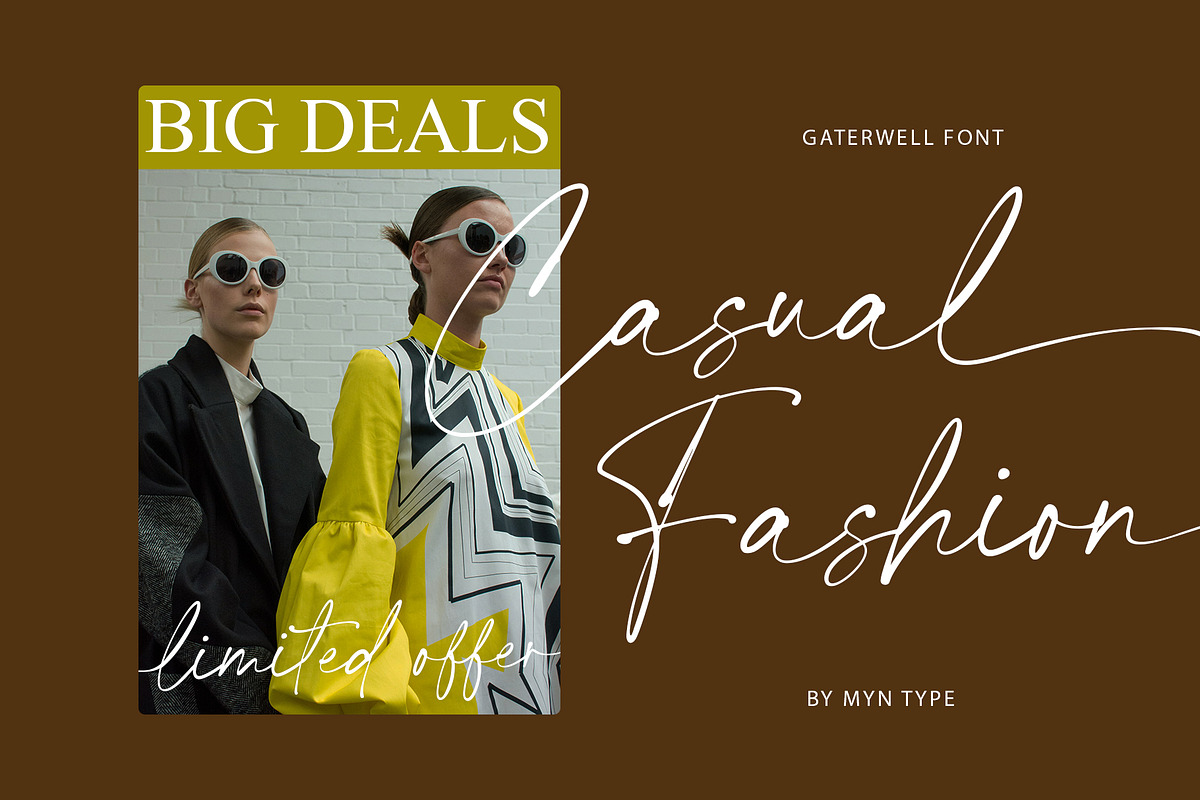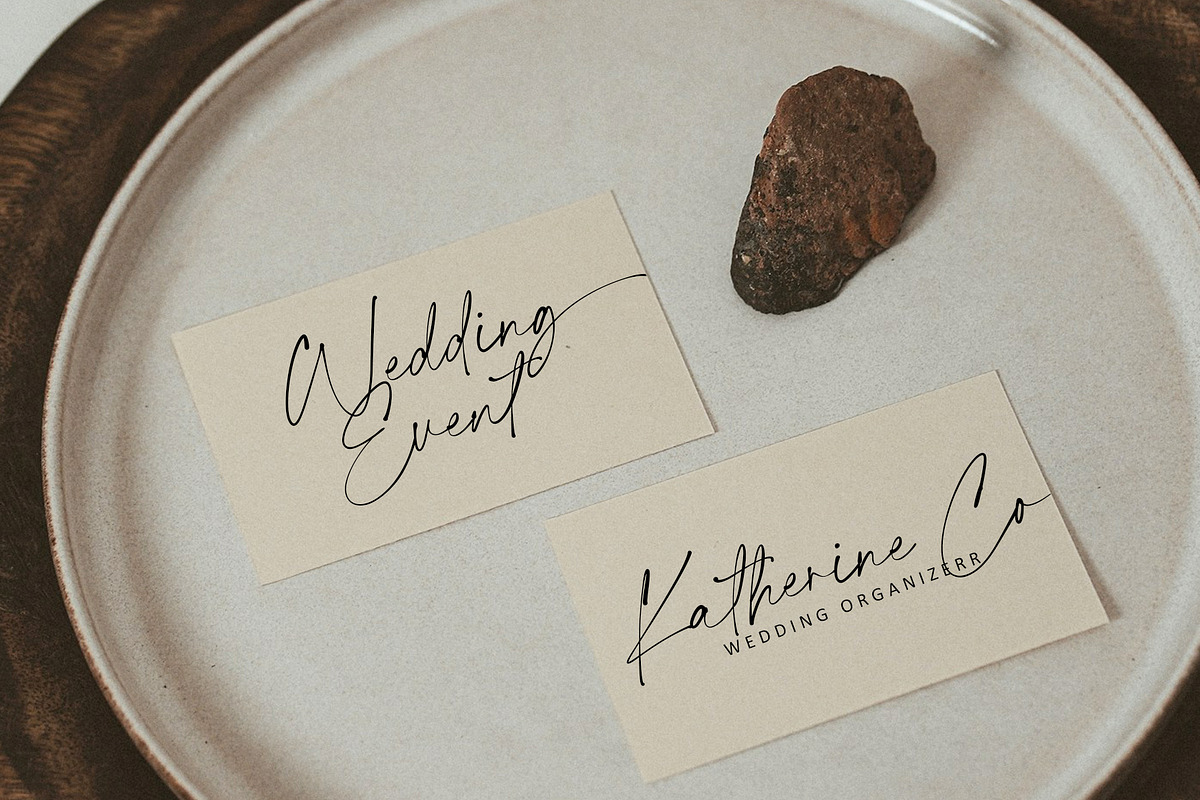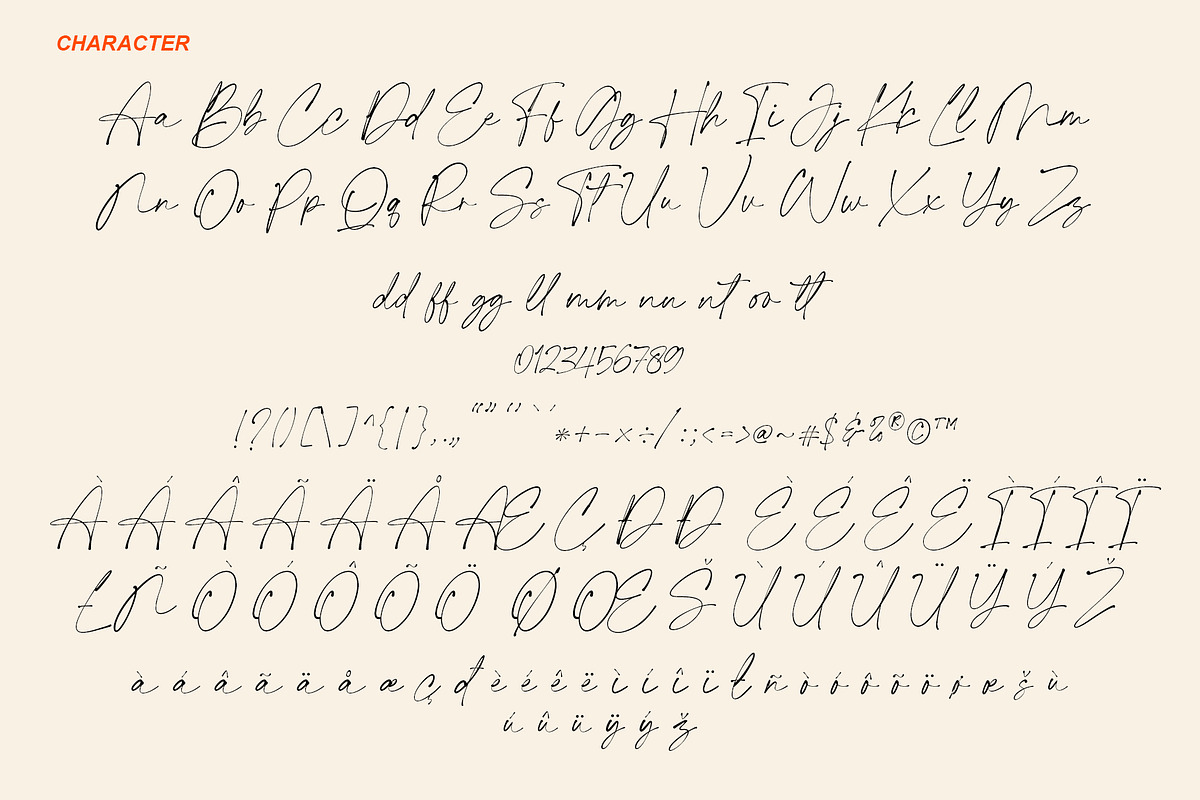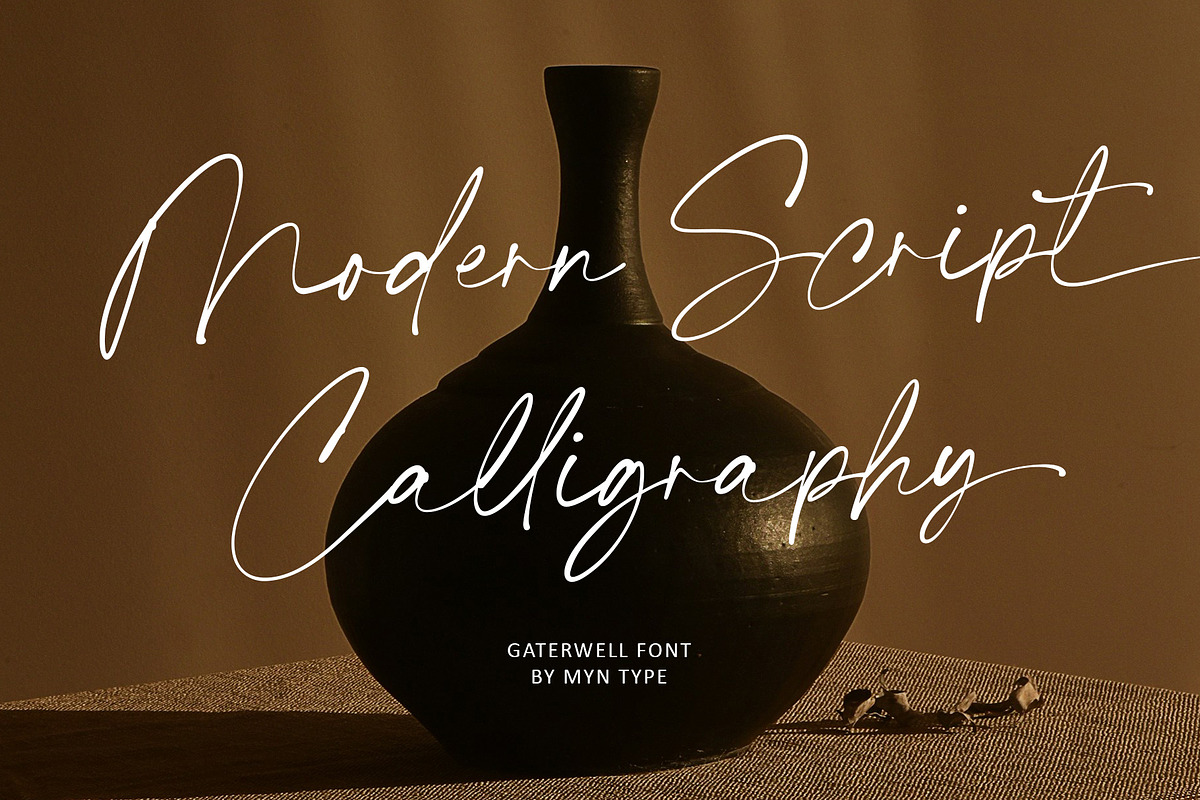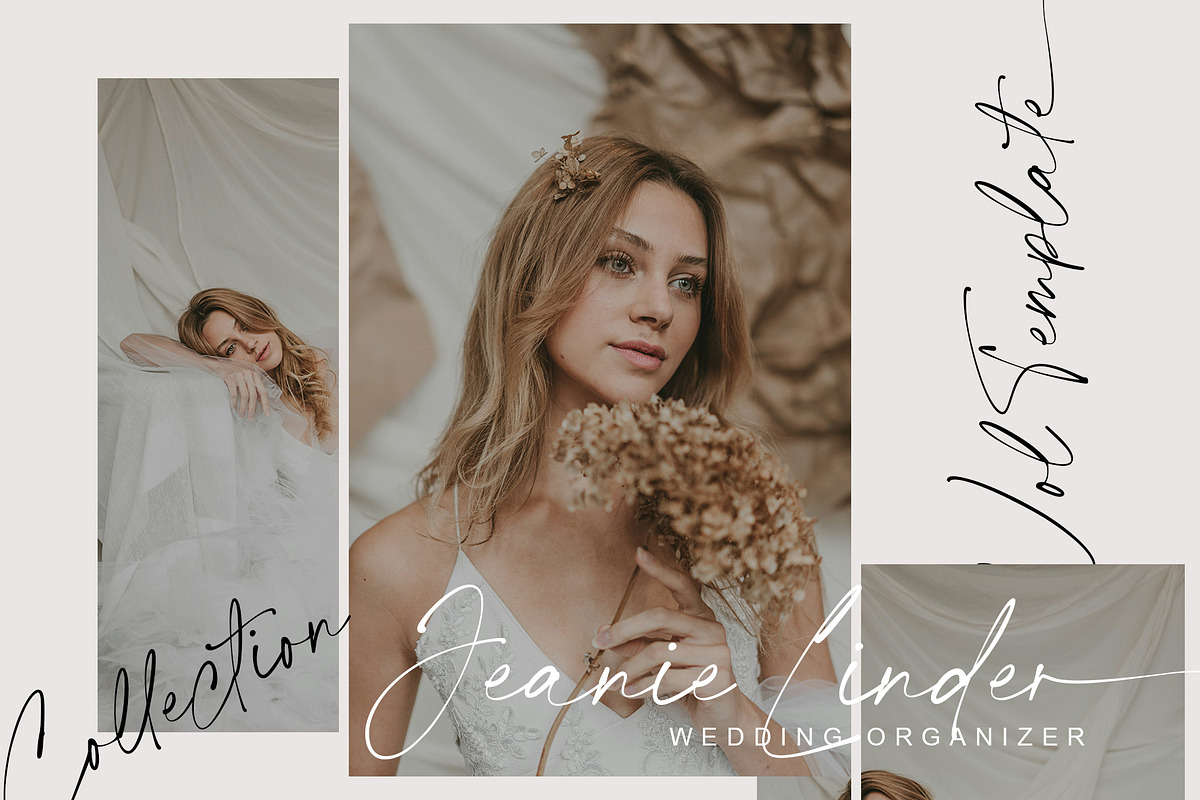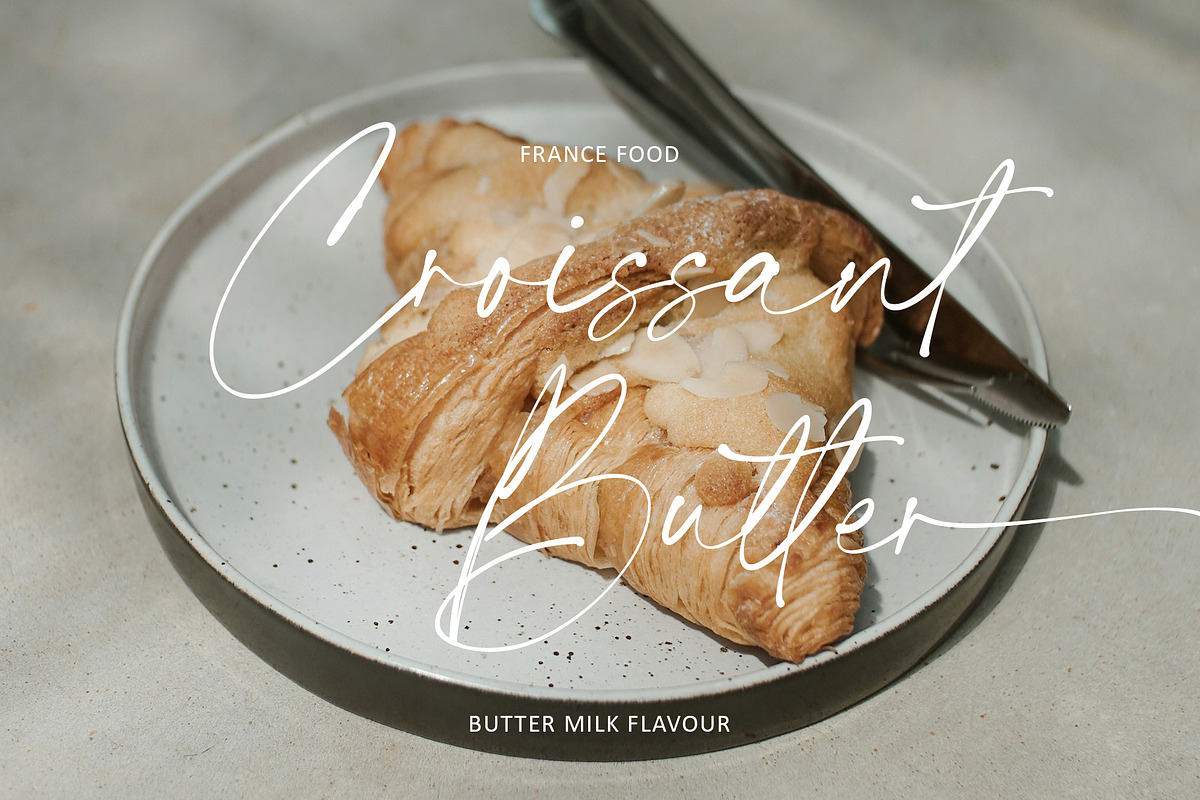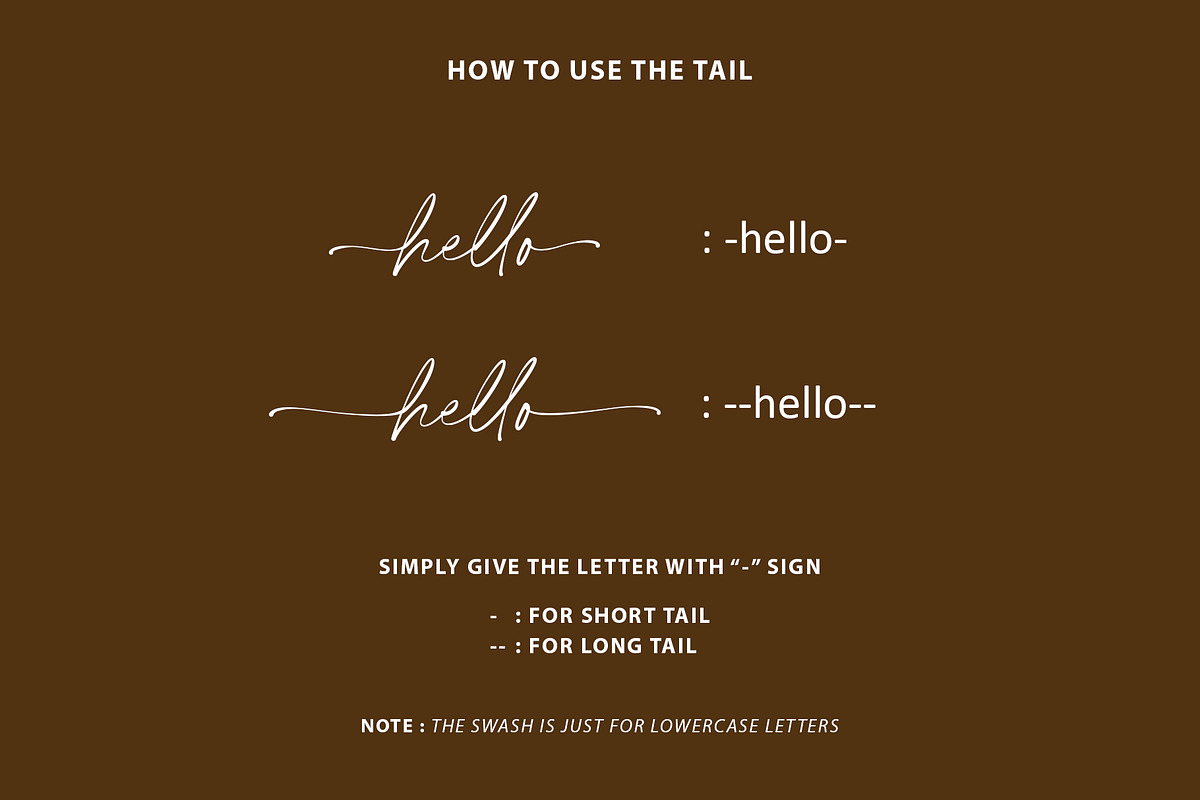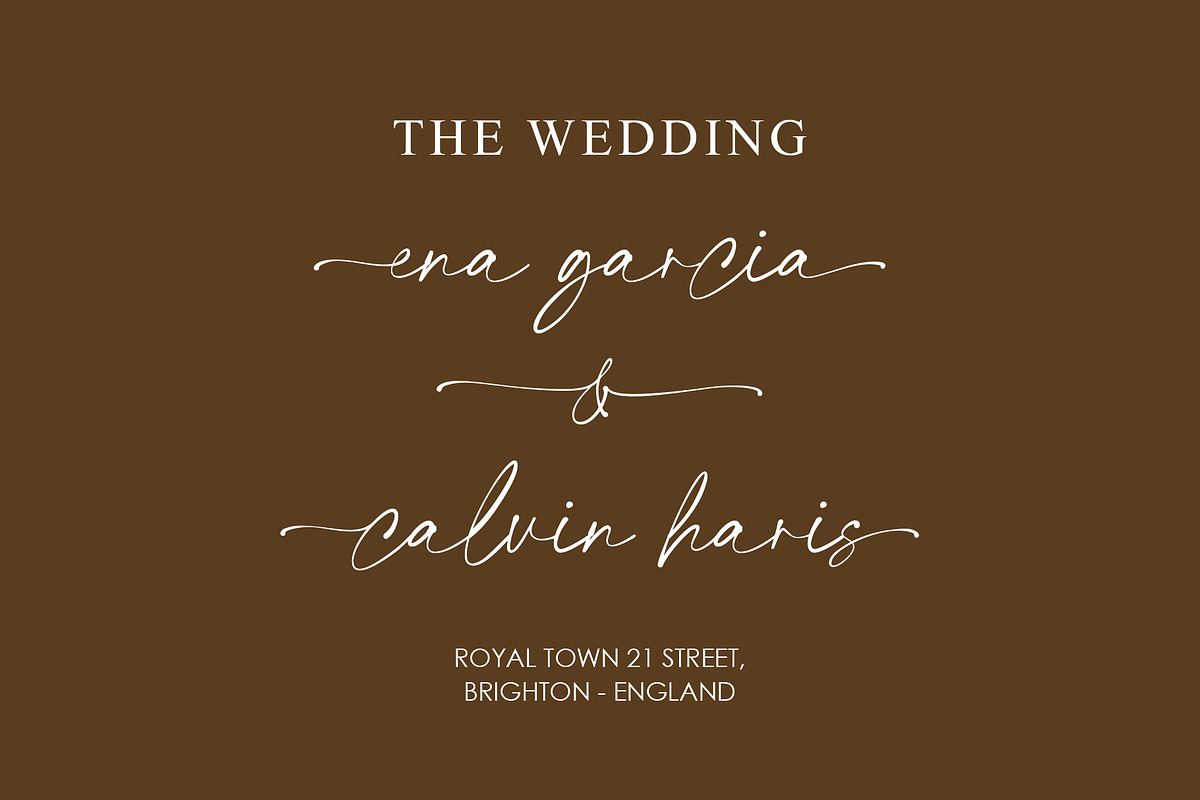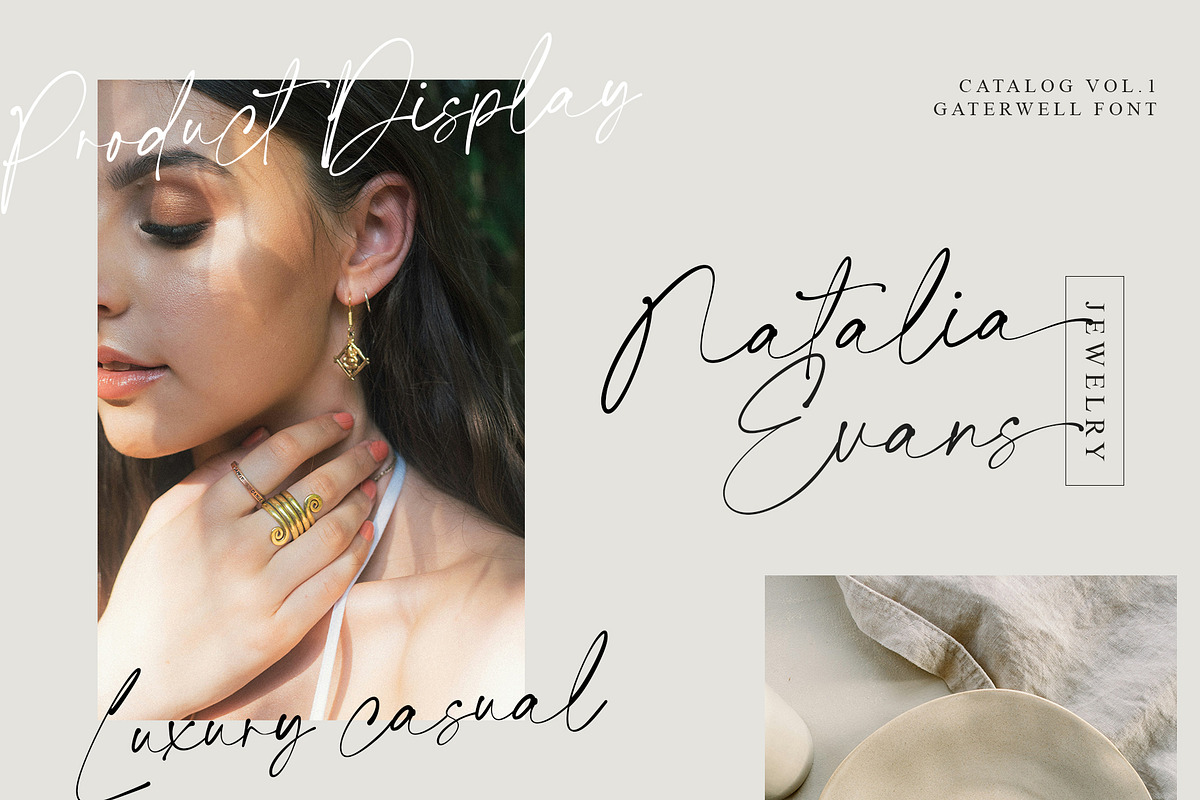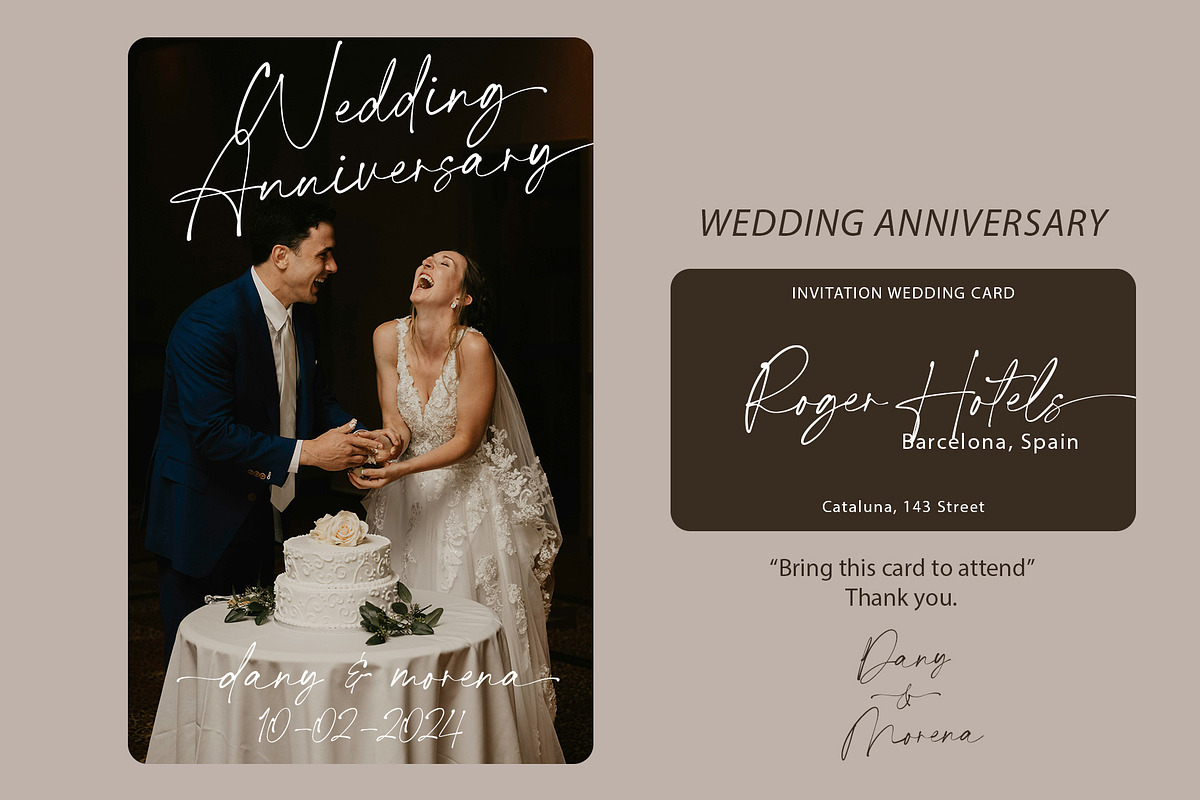
Gaterwell - Modern Chic Calligraphy
Meet the Gaterwell!
An natural chic calligraphy font that given natural flow, modern and casual style. These fonts are designed with swash tail in letters shapes and strokes that add to their charm and authenticity.
Gaterwell is perfect for creating calligraphy logos, invitations, display product, wedding design, social media graphics, and other design elements that require a natural and modern touch.